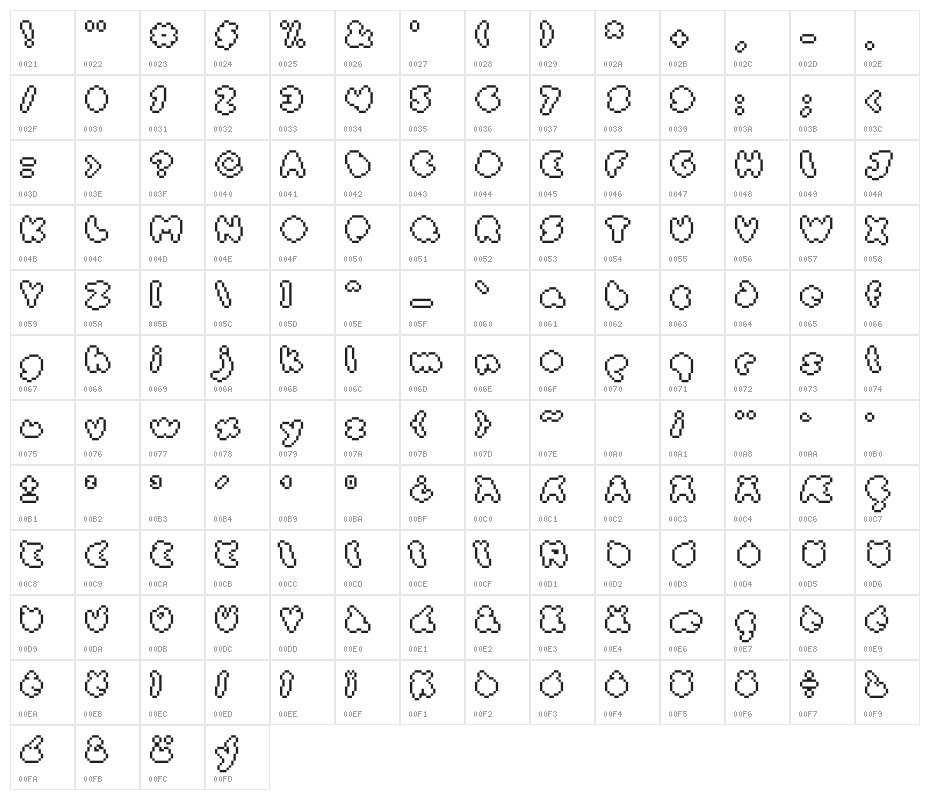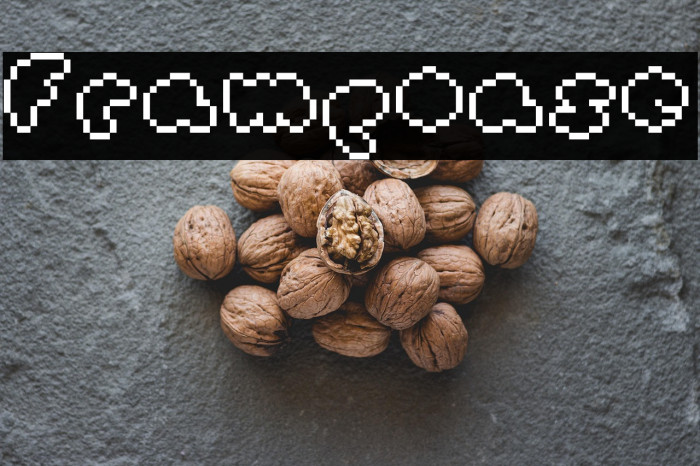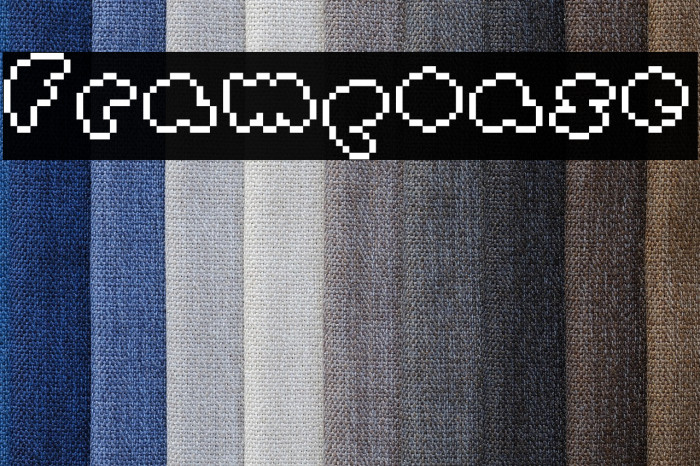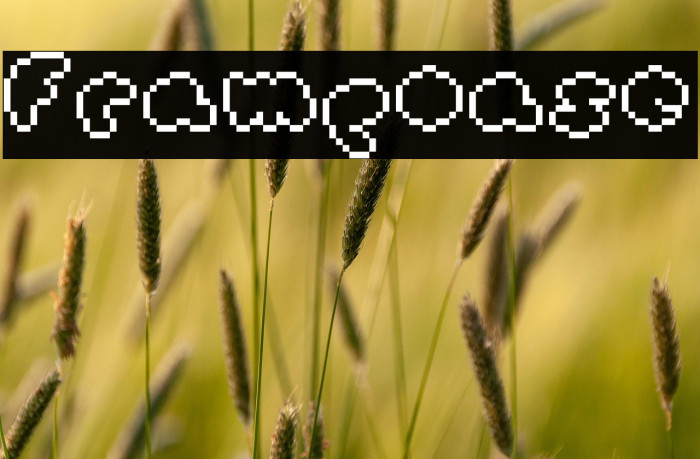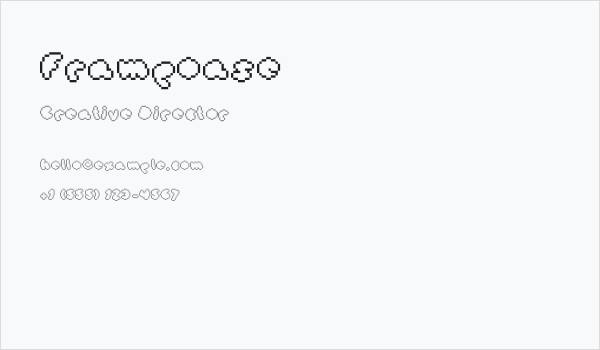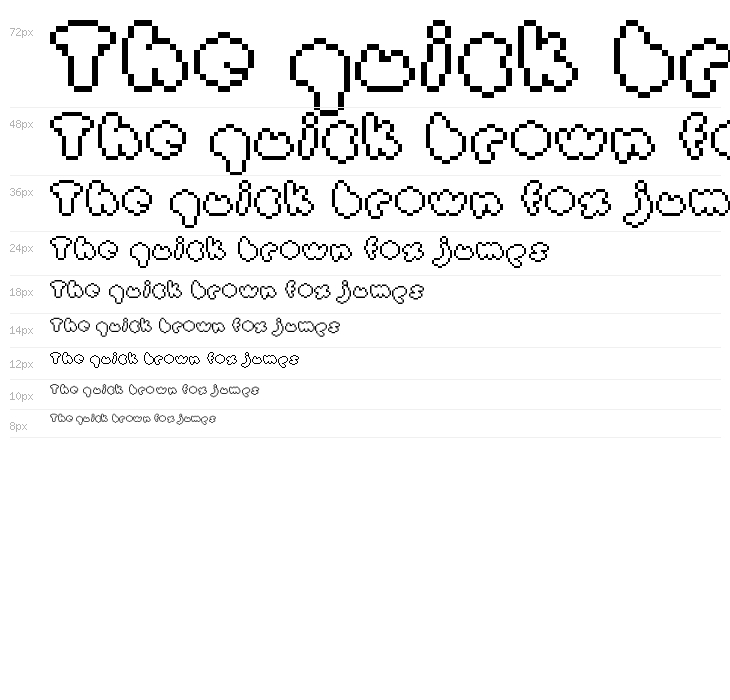
Frampoase Font
Frampoase Description
This font features a playful and bold design with a pixelated, bubble-like appearance. The characters are outlined with a consistent thickness, creating a cohesive look across both uppercase and lowercase letters. The numbers and special characters maintain the same bubbly, pixelated style, ensuring uniformity throughout. The font's unique design is eye-catching and stands out due to its decorative and whimsical nature. It is ideal for projects that require a fun and engaging visual element, such as children's books, playful branding, or creative digital content. The consistent outline and pixelated effect give it a retro, video game-inspired aesthetic, making it suitable for nostalgic or themed projects.
| Proposed Projects | Ideal for children's books, playful branding, creative digital content, and retro-themed projects. |